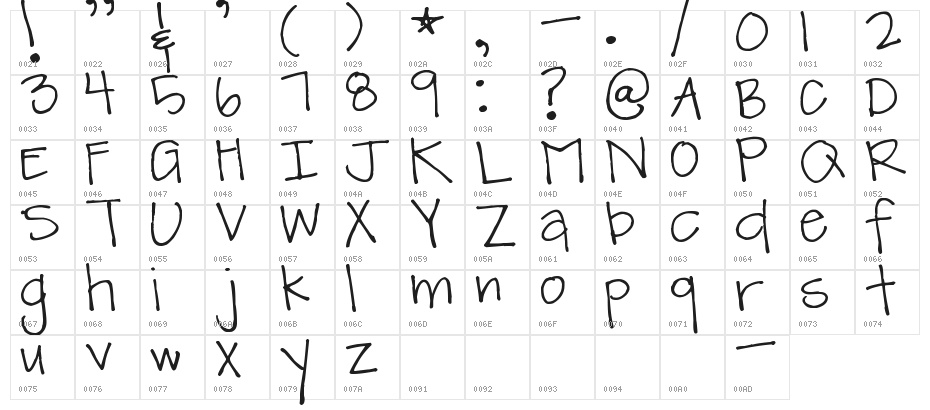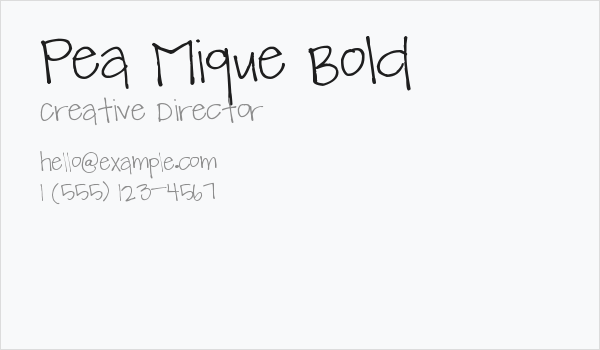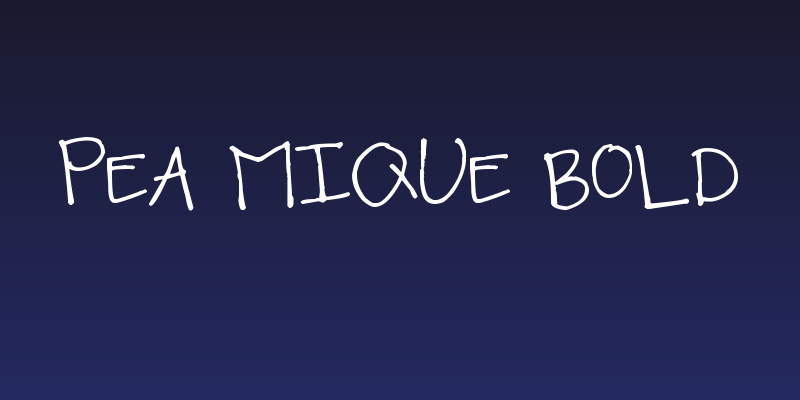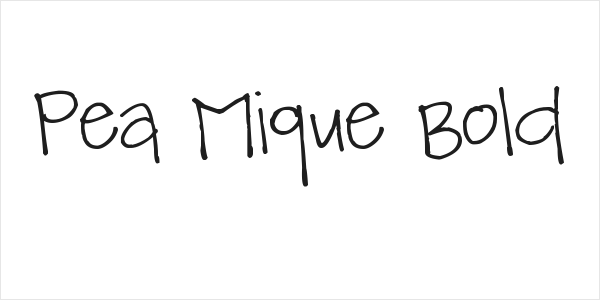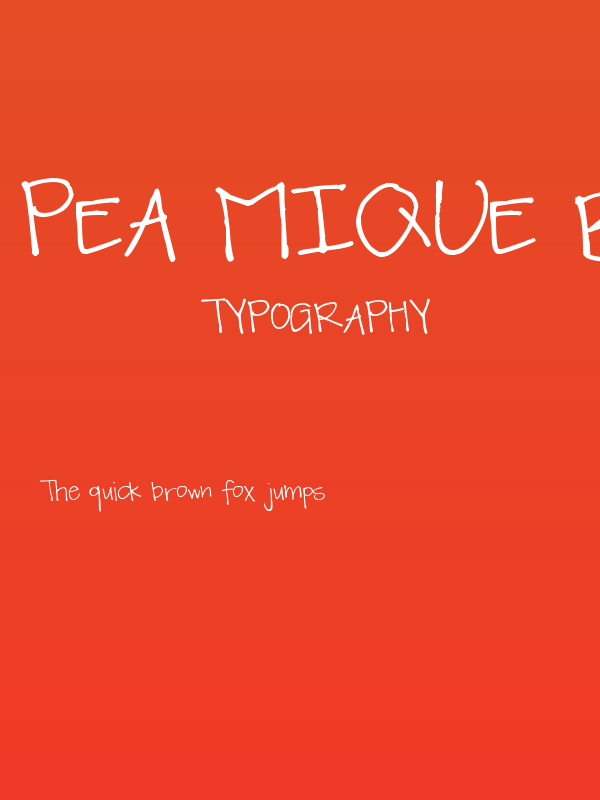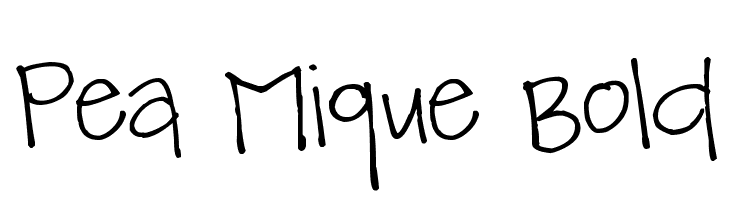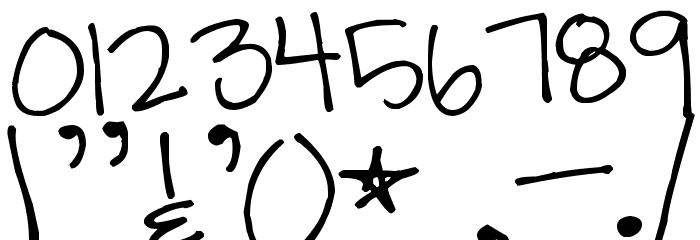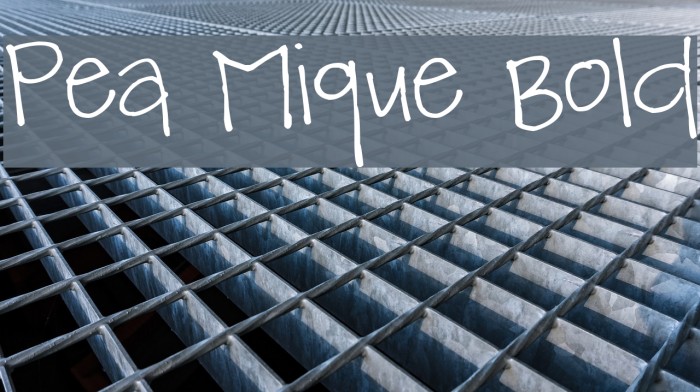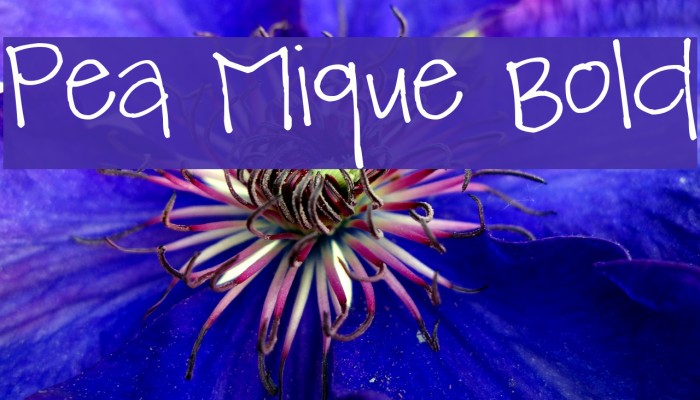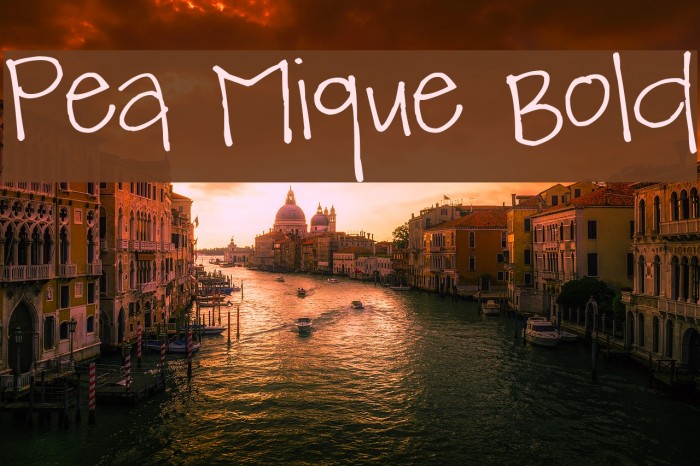
Pea Mique Bold Font
Pea Mique Bold Description
This playful and informal font features a handwritten style with a casual, friendly appearance. The letters are slightly irregular, giving it a personal touch that mimics natural handwriting. The strokes are consistent in thickness, providing a uniform look across all characters. The uppercase and lowercase letters maintain a cohesive style, with rounded edges and a slightly tilted orientation, adding to its approachable feel. The numerals and special characters are designed to match the overall aesthetic, ensuring a harmonious look throughout.
| Overall Style | Casual |
| Use Case | Headlines, Informal text, Personal projects |
| Proposed Projects | Ideal for greeting cards, children's books, personal blogs, and informal invitations. |